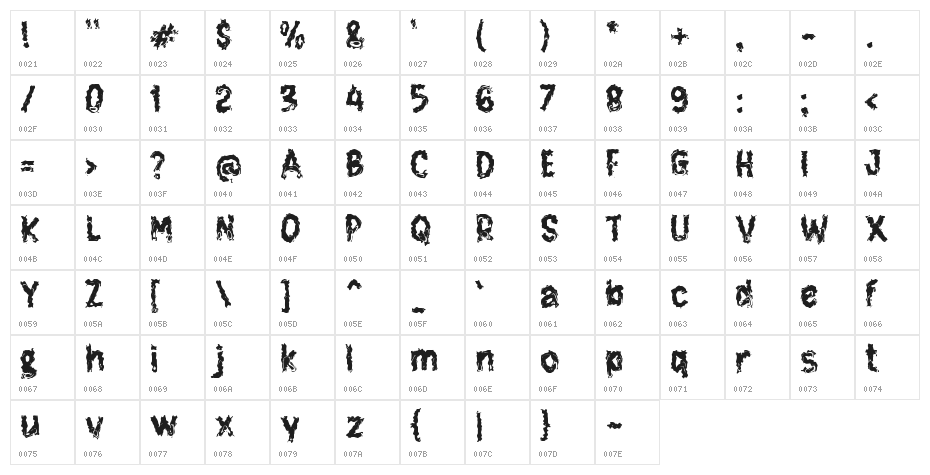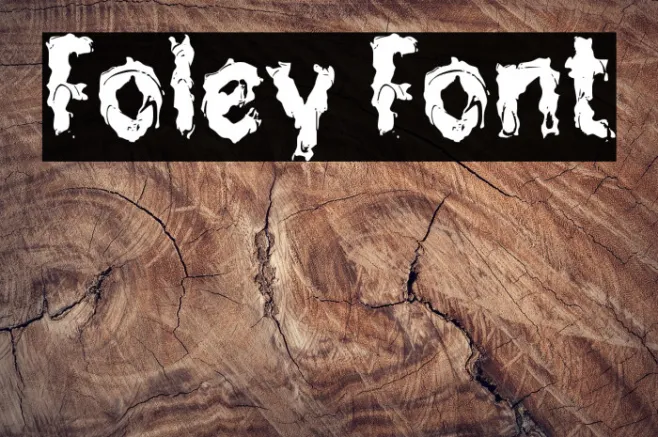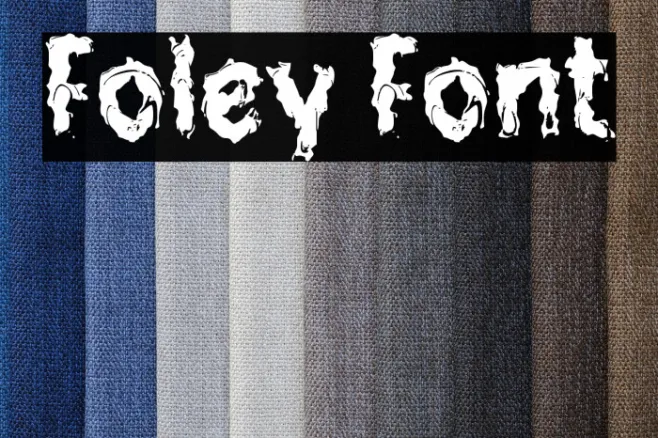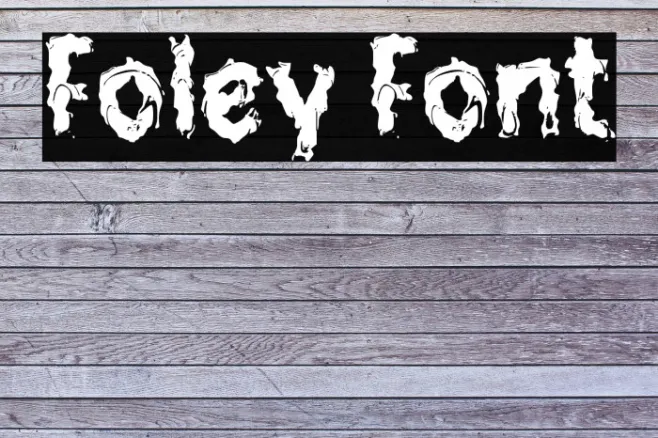
Foley Font
This font features a highly decorative and chaotic style, with each character appearing as if it is melting or dissolving. The strokes are irregular and jagged, creating a sense of movement and energy. The design is bold and eye-catching, making it suitable for projects that require a dramatic and unconventional look. The characters are densely packed with intricate details, giving the font a textured appearance. This style is reminiscent of horror or fantasy themes, making it ideal for creative projects that aim to evoke a sense of mystery or unease.
| Proposed Projects | Ideal for horror-themed posters, fantasy book covers, Halloween invitations, or any project needing a dramatic, eerie touch. |